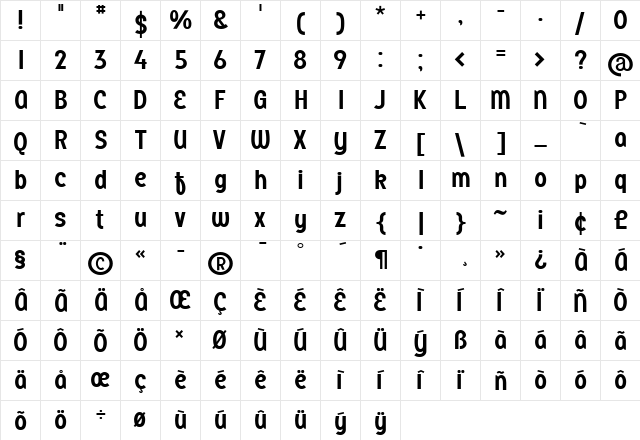
SisterMedium Regular
Regular · \ Gareth Hague  ·
Foundry \ Gareth Hague
Design Context for SisterMedium Typeface
SisterMedium is a composed and adaptable typeface that performs quietly and consistently across a wide range of design contexts.